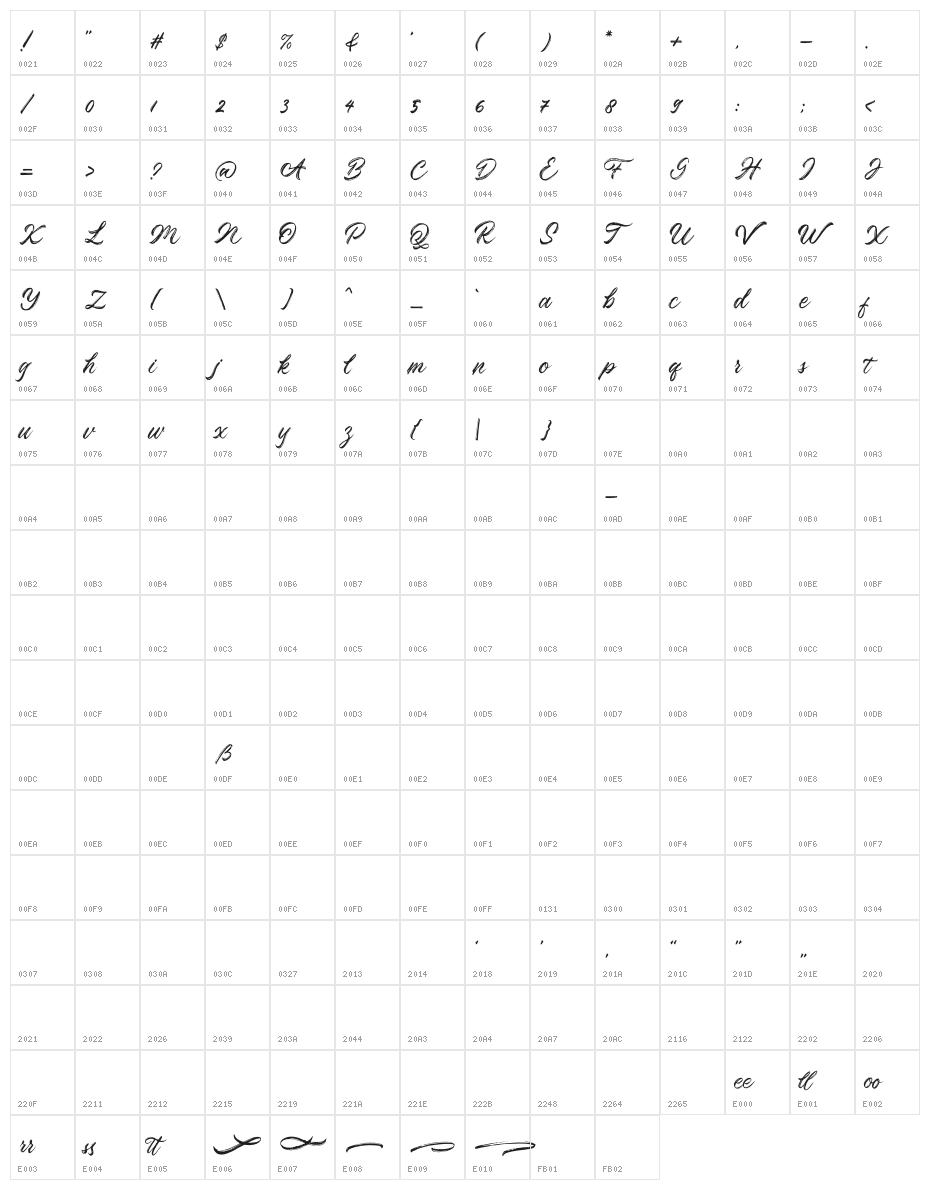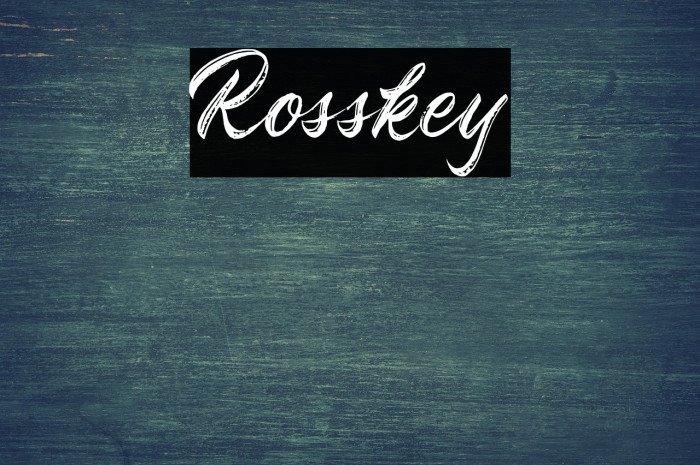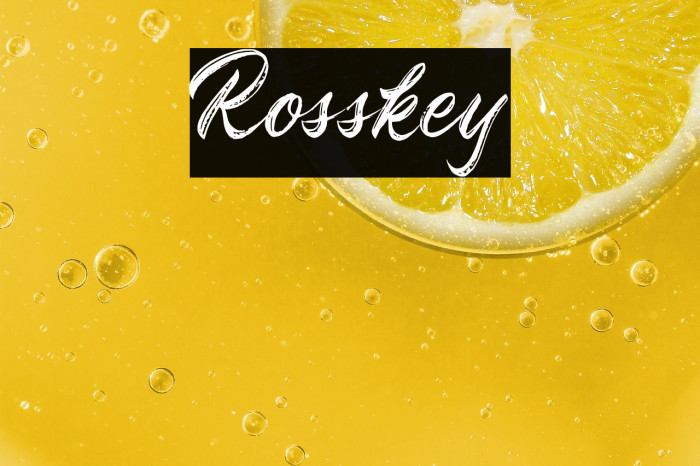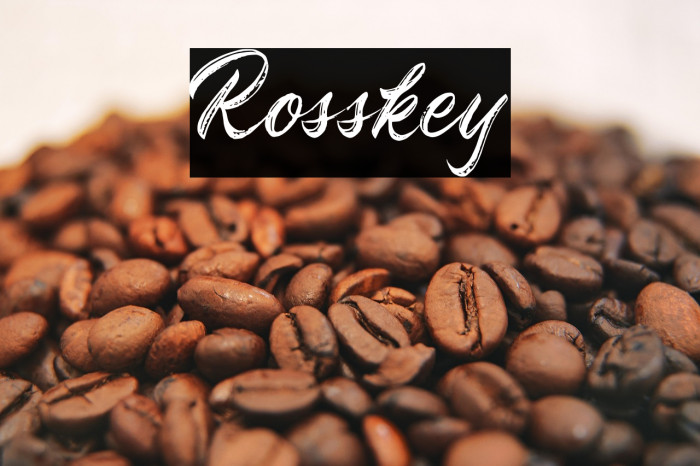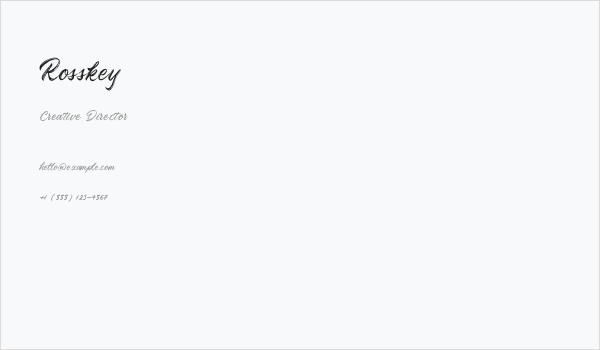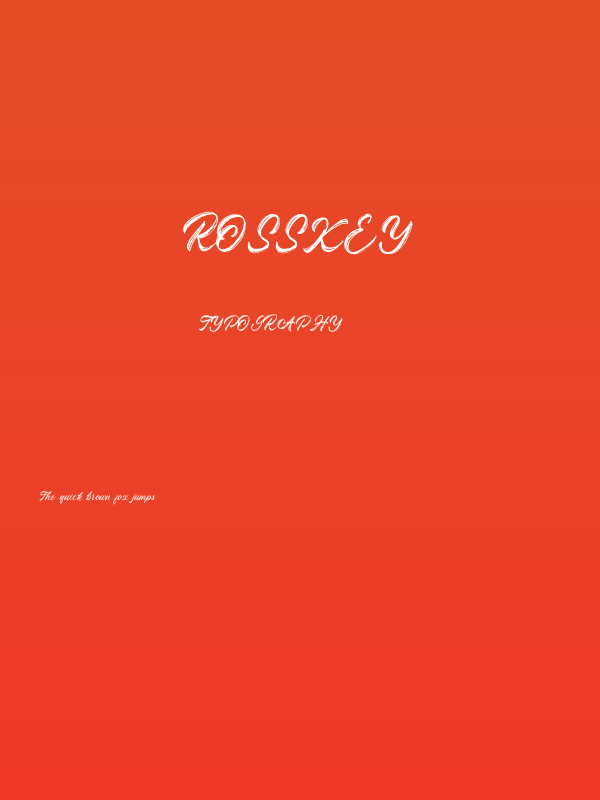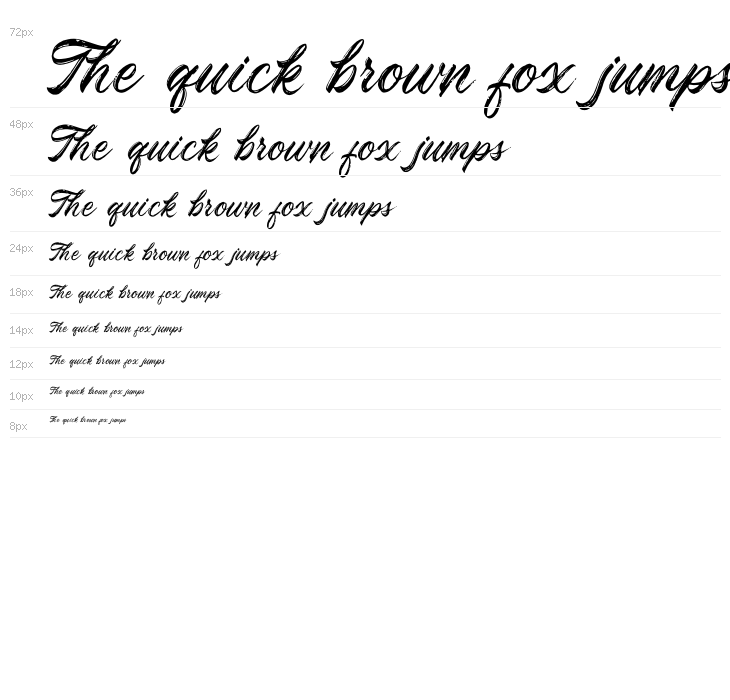
Rosskey Font
Rosskey Description
This font features an elegant and flowing script style, characterized by its cursive and connected letterforms. The strokes are smooth and exhibit a slight slant, giving it a dynamic and lively appearance. The uppercase letters are ornate, with some featuring additional flourishes that enhance their decorative quality. The lowercase letters maintain a consistent flow, making them highly legible despite their intricate design. Numbers and special characters are crafted with the same attention to detail, ensuring a cohesive look across all elements. This font is ideal for projects that require a touch of sophistication and elegance.
| Proposed Projects | Ideal for wedding invitations, elegant branding, greeting cards, and decorative headings. |